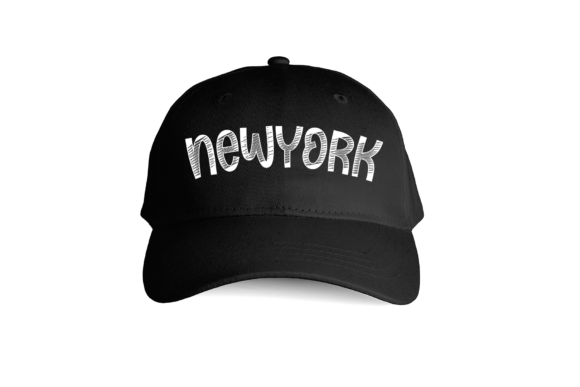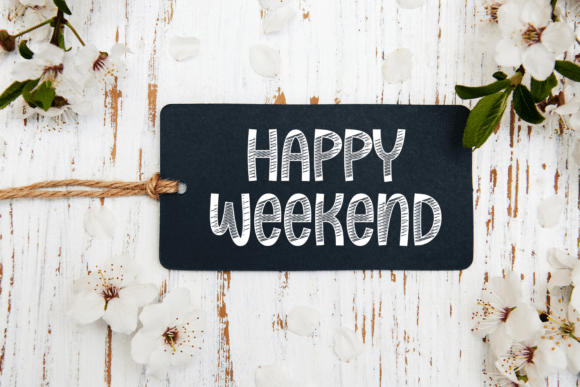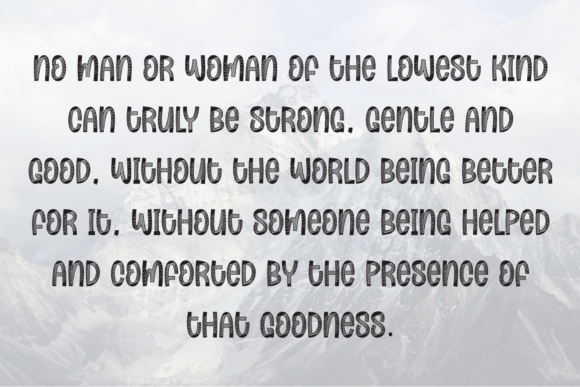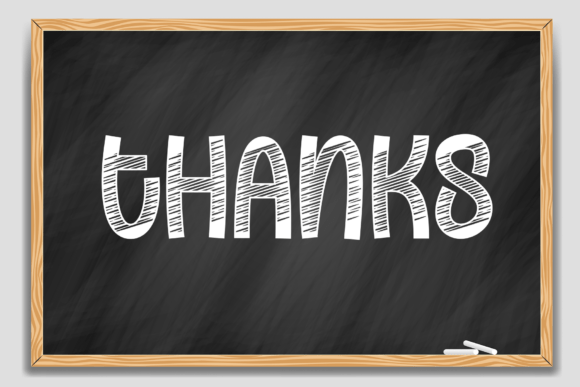
The Ultimate Guide to BLACK BOARD Font: A High-Impact Display Typeface
Are you a designer or crafter looking for a font that can add a touch of rustic charm and energetic personality to your projects? Look no further than the BLACK BOARD font, a high-impact, all-caps display typeface that perfectly captures the rough, textured appearance of hand-drawn chalk lettering on a blackboard.
The Unique Characteristics of BLACK BOARD Font
The BLACK BOARD font boasts a unique hatching and distressed effect within its bold letterforms, giving it an authentic, energetic, and educational feel. This makes it an ideal choice for a wide range of applications, from classroom materials and menus to casual signs and handcrafted logos. The font’s rough, expressive texture is highly versatile and perfect for projects that require a rustic, vintage, or craft-style aesthetic.
What Makes BLACK BOARD Font So Special?
The distinct visual texture of the BLACK BOARD display font ensures that any message is delivered with bold personality and flair. Its all-caps design and bold letterforms make it perfect for headlines, titles, and short phrases, while its unique texture and hatching effects add a level of depth and visual interest that is hard to achieve with standard fonts.
Whether you’re a designer looking for a font that can add a touch of personality to your projects or a crafter seeking a unique and expressive typeface for your handmade creations, the BLACK BOARD font is an excellent choice. Its PUA encoding includes all special characters and decorative elements, making it easy to access and use without additional software.
Use Cases for BLACK BOARD Font
The BLACK BOARD font is highly versatile and can be used in a wide range of applications, including:
- Classroom materials: Create engaging and educational materials for your students with a font that looks like it was written on a blackboard.
- Menus: Add a touch of rustic charm to your restaurant or cafe menu with a font that’s perfect for headings and titles.
- Casual signs: Create eye-catching signs for your business or event with a font that’s bold, energetic, and attention-grabbing.
- Handcrafted logos: Add a personal touch to your logo with a font that’s unique, expressive, and full of character.
Why Choose BLACK BOARD Font?
So why choose the BLACK BOARD font over other display typefaces? Here are just a few reasons:
- Unique texture: The BLACK BOARD font has a one-of-a-kind texture that’s unlike any other font on the market.
- High-impact: The font’s bold letterforms and distressed effects make it perfect for grabbing attention and making a statement.
- Versatile: The BLACK BOARD font can be used in a wide range of applications, from digital projects to print materials.
In conclusion, the BLACK BOARD font is a high-impact, all-caps display typeface that’s perfect for designers and crafters looking to add a touch of rustic charm and energetic personality to their projects. Its unique texture, bold letterforms, and distressed effects make it an ideal choice for a wide range of applications, from classroom materials and menus to casual signs and handcrafted logos. With its PUA encoding and ease of use, the BLACK BOARD font is a must-have for anyone looking to add a little extra flair to their designs.